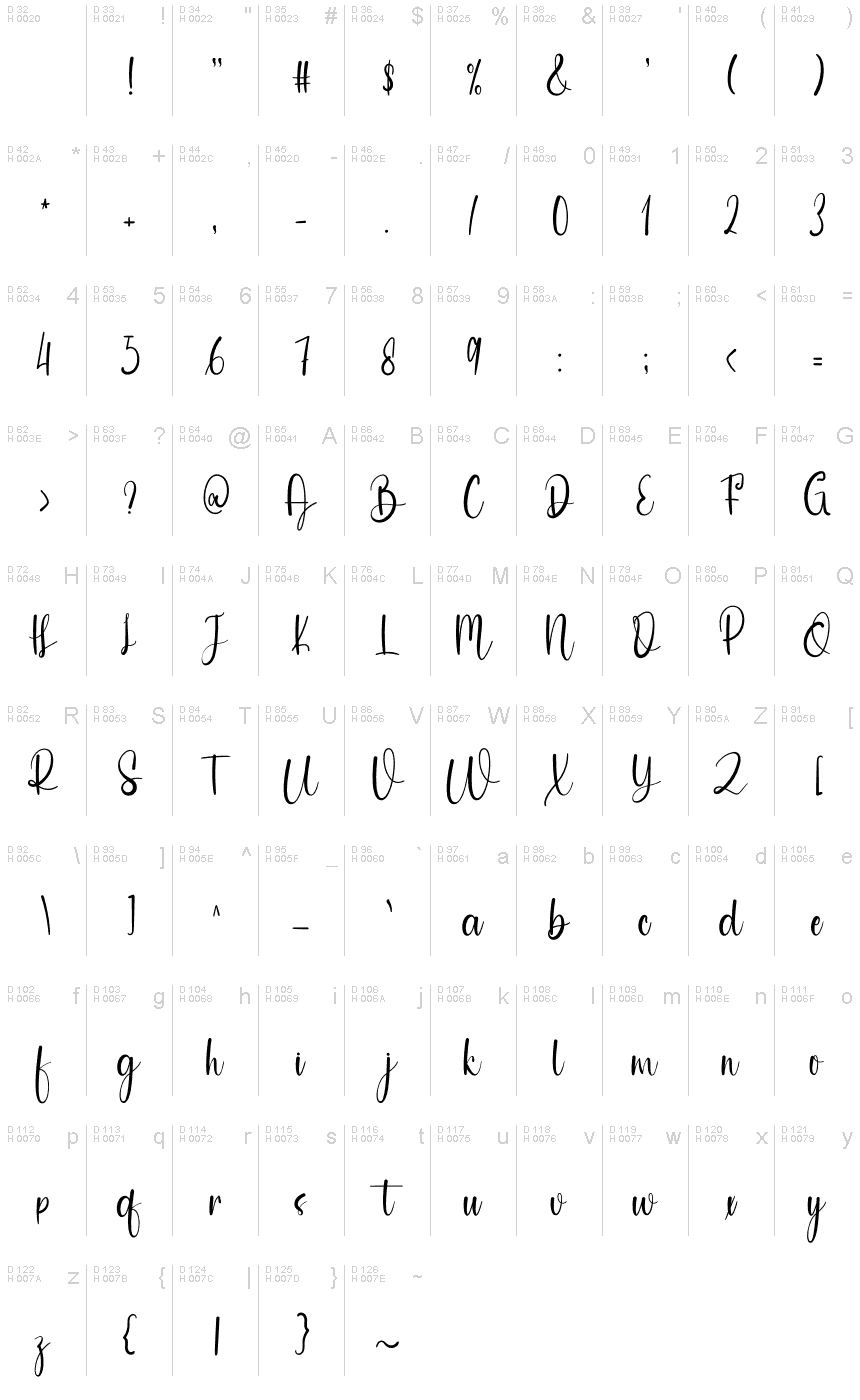
Sweet Signature
Sweet Signature, designed by PiPi Creative, exudes a natural and personalized charm that can only be captured by the handwritten style. With its semi-light weight, this font possesses an airy elegance that mimics the nuances of actual penmanship. The graceful flow of each letter in Sweet Signature creates an intimate and bespoke feel, making it ideal for invitations, branding, and heartfelt messages where a touch of human warmth is desired.
The aesthetic appeal lies in its fluidity and subtle sophistication; it’s neither too bold to overwhelm nor too faint to fade into the background. This balance ensures legibility while maintaining a delicate presence on the page or screen. Sweet Signature's potential extends to digital graphics, print media, and creative arts — anywhere you need a hint of personalization without sacrificing style or readability.